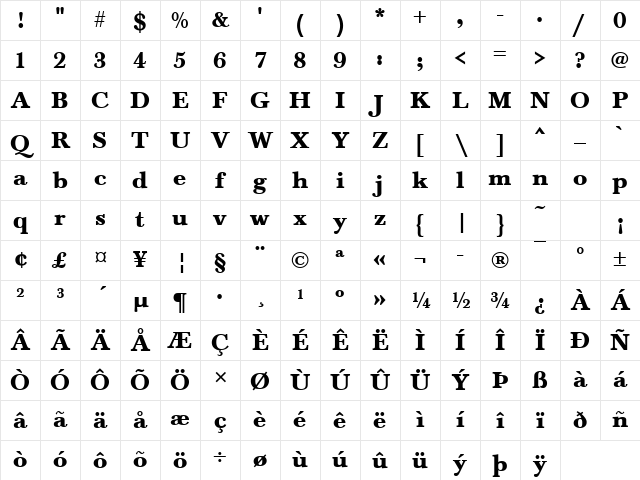
BaskervilleT Bold
Style: Bold
Design Context for BaskervilleT
BaskervilleT is a composed and adaptable typeface that performs quietly and consistently across a wide range of design contexts. Its bold stroke weight gives it real presence on the page.